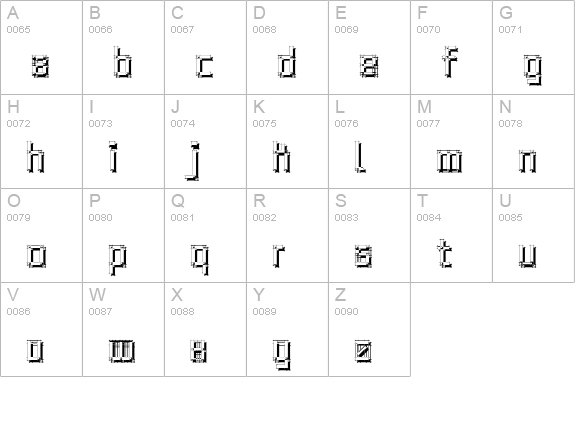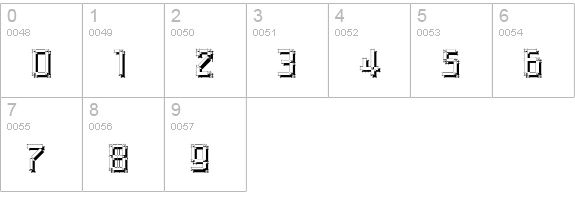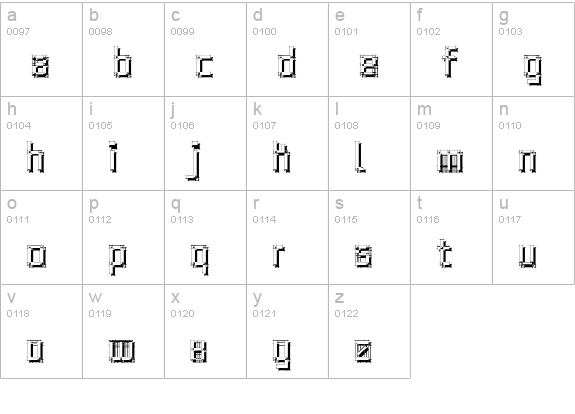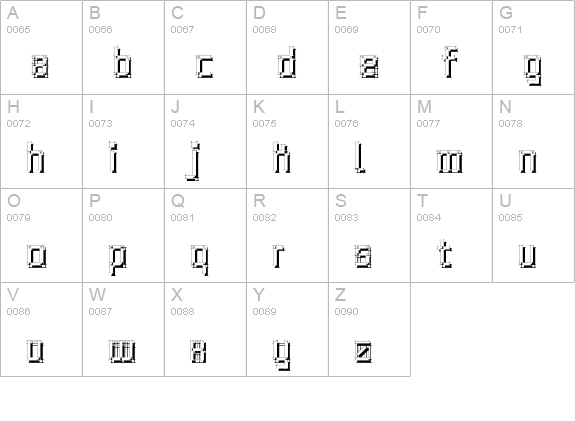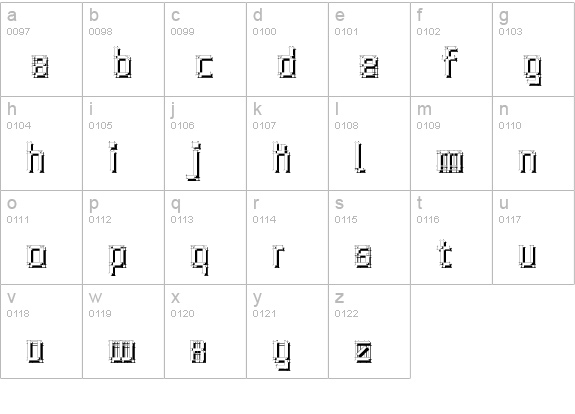
ArchitypoShadow Font Details
ArchitypoShadow is a stunning display font that exudes a sense of elegance and sophistication. Its unique design features bold, angular letterforms that create a striking visual impact. The sharp edges and shadow effects give this font a modern and edgy feel, making it perfect for adding a touch of drama to any design project. What sets ArchitypoShadow apart is not just its eye-catching design, but also the fact that it is available for free download at FontsMarket.com. This means that you can easily access this beautiful font and use it in your creative endeavors without any cost. Whether you're working on branding, advertising, or graphic design projects, ArchitypoShadow is sure to make a bold statement and leave a lasting impression. Download it today and unleash your creativity with this exceptional font!